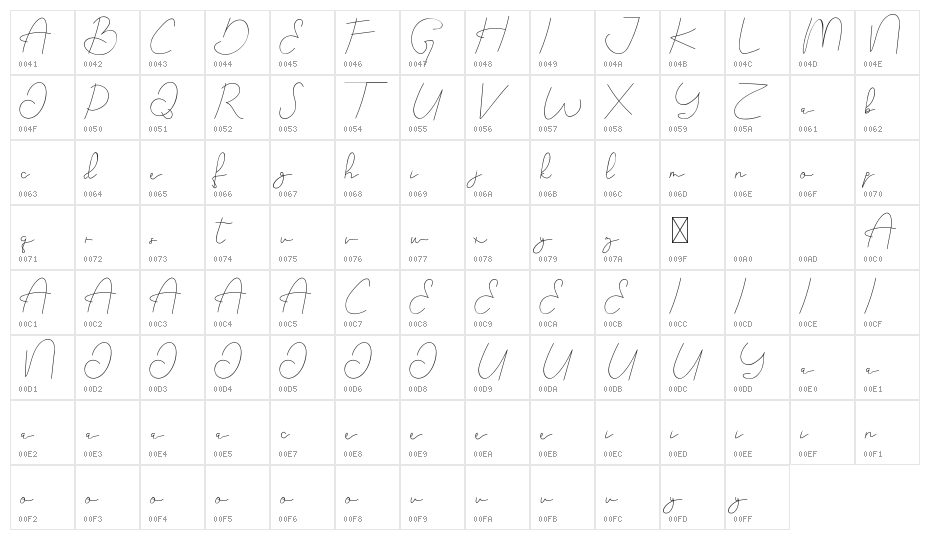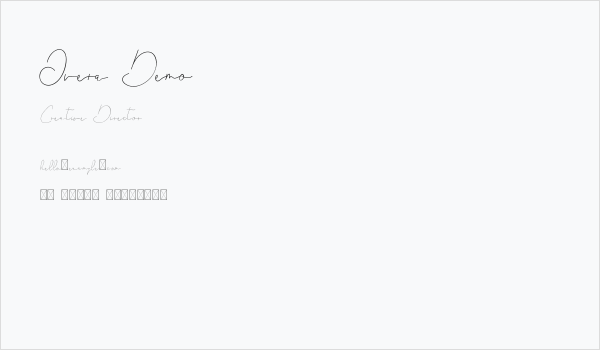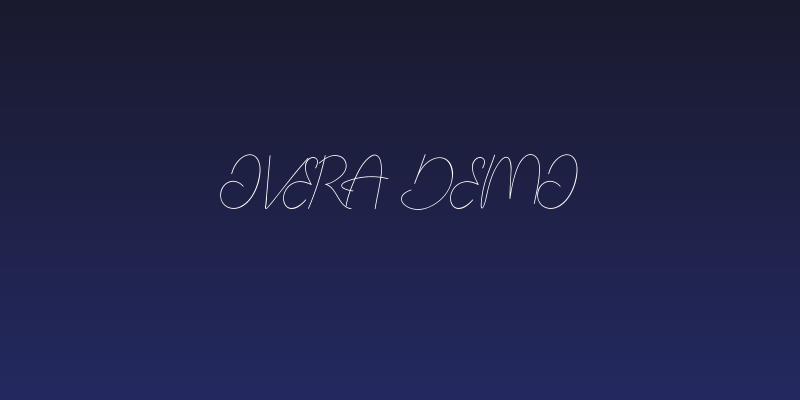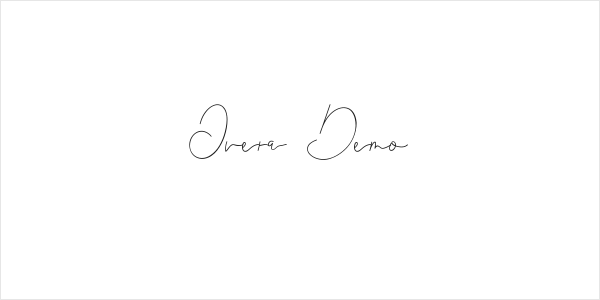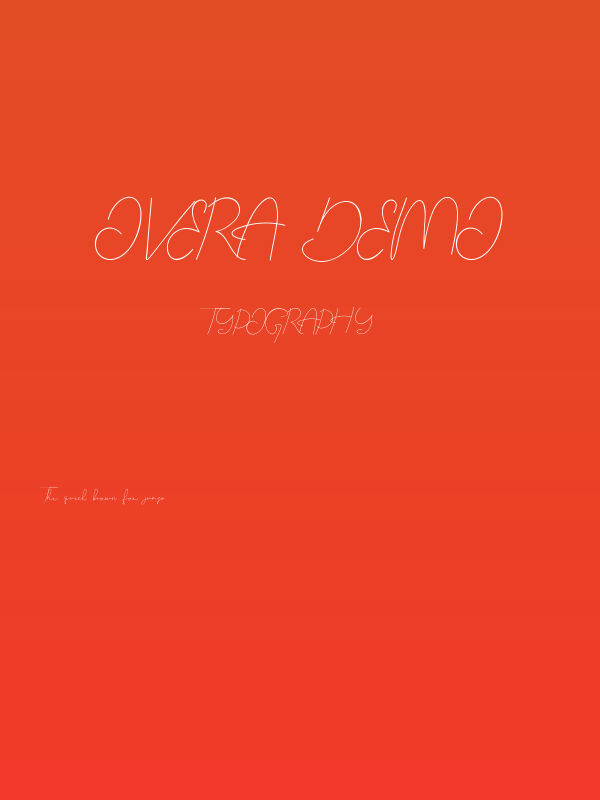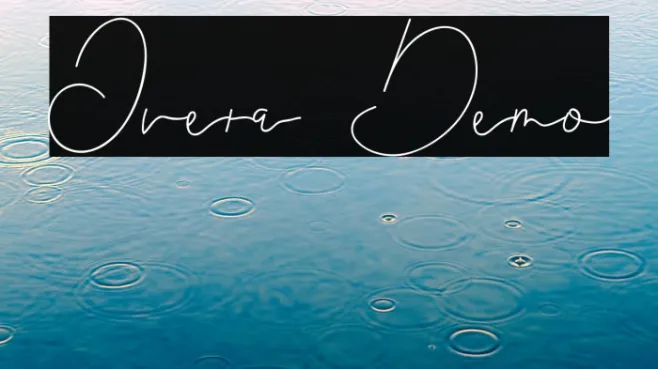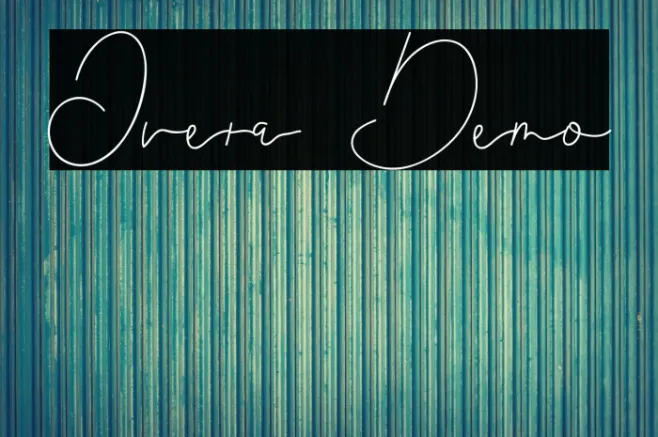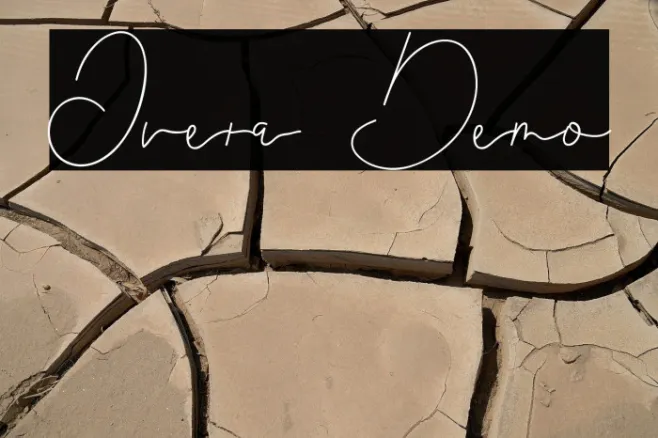
Overa Demo Font
Overa Demo Description
This font features an elegant and flowing script style, characterized by its thin, delicate lines and cursive letterforms. The uppercase letters are tall and slender, with a graceful, looping design that adds a sense of movement and fluidity. The lowercase letters maintain a consistent style, with smooth connections and a slightly more compact form. The overall appearance is sophisticated and artistic, making it suitable for projects that require a touch of elegance and creativity. The font's thin strokes and airy design give it a light and ethereal quality, perfect for adding a personal and handwritten touch to any design.
OVERA-DEMO UPPERCASE
OVERA-DEMO LOWERCASE
OVERA-DEMO OTHER CHARS
| Overall Style | Elegant, Artistic |
| Proposed Projects | Ideal for wedding invitations, greeting cards, branding, and elegant packaging designs. |